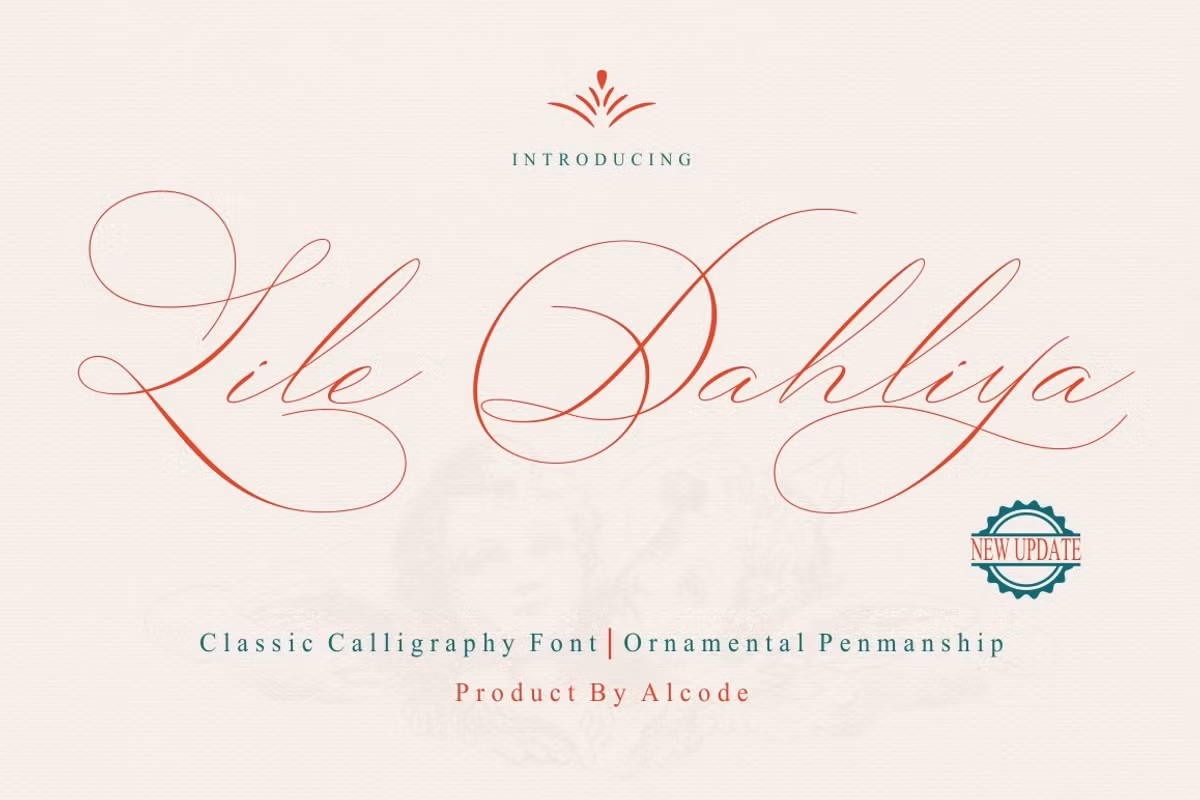
Lile Dahliya Font Free Download is a graceful and feminine script typeface that radiates beauty, romance, and handwritten elegance. Please note: you must purchase this font for commercial use, but you can test it through a free download. With its delicate strokes, flowing curves, and natural rhythm, Lile Dahliya is perfect for wedding stationery, branding, beauty packaging, Instagram quotes, and any design that needs a soft, stylish touch.
This font brings a refined, personal feel to every project—ideal for creatives looking to infuse their work with charm and sophistication. Whether you're crafting a boutique logo or a heartfelt message, Lile Dahliya Font Free Download offers versatility and elegance in one beautifully written style. Fully compatible with Adobe Illustrator, Photoshop, Canva, and more. Download it today for personal use and let your typography bloom with the gentle allure of Lile Dahliya.